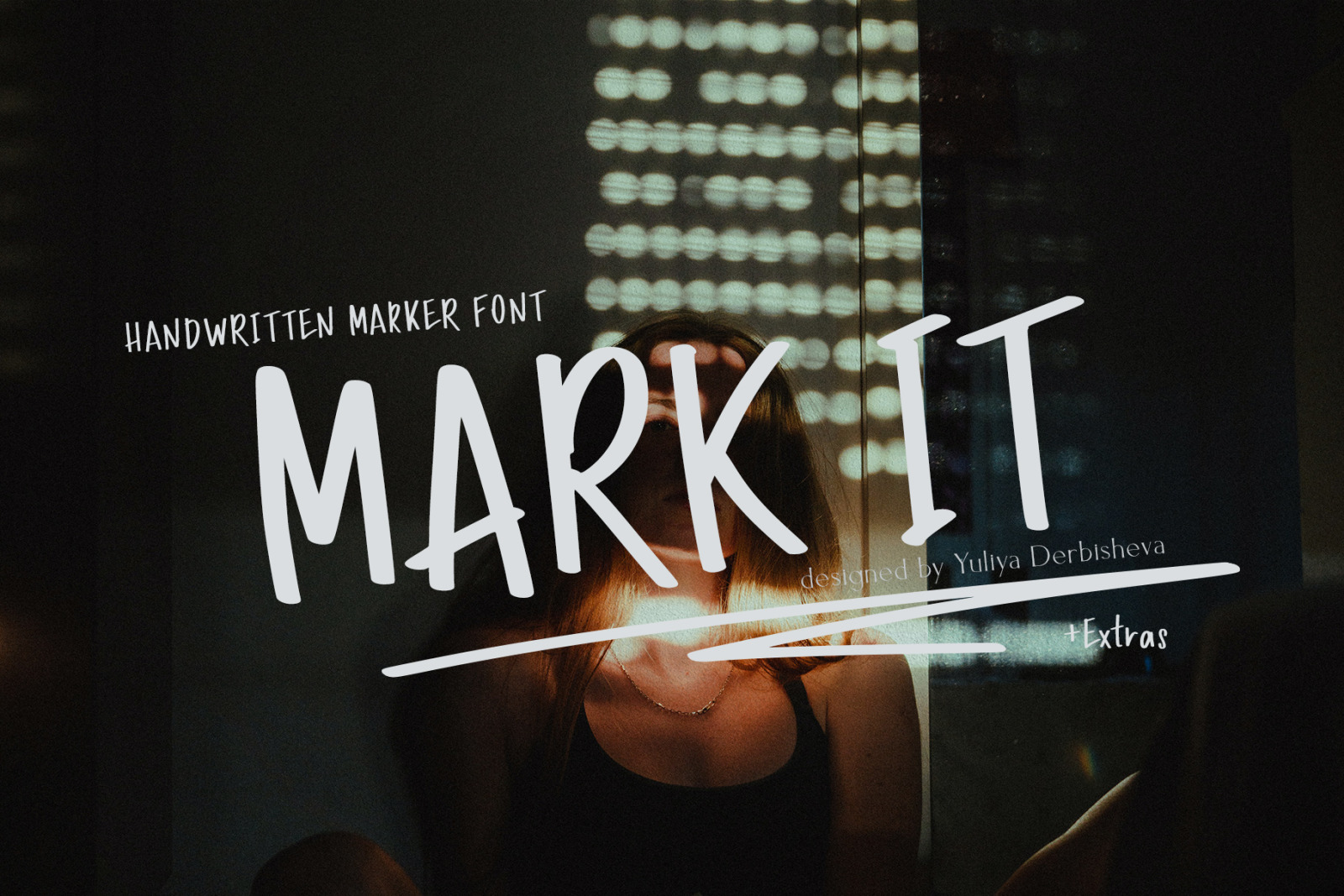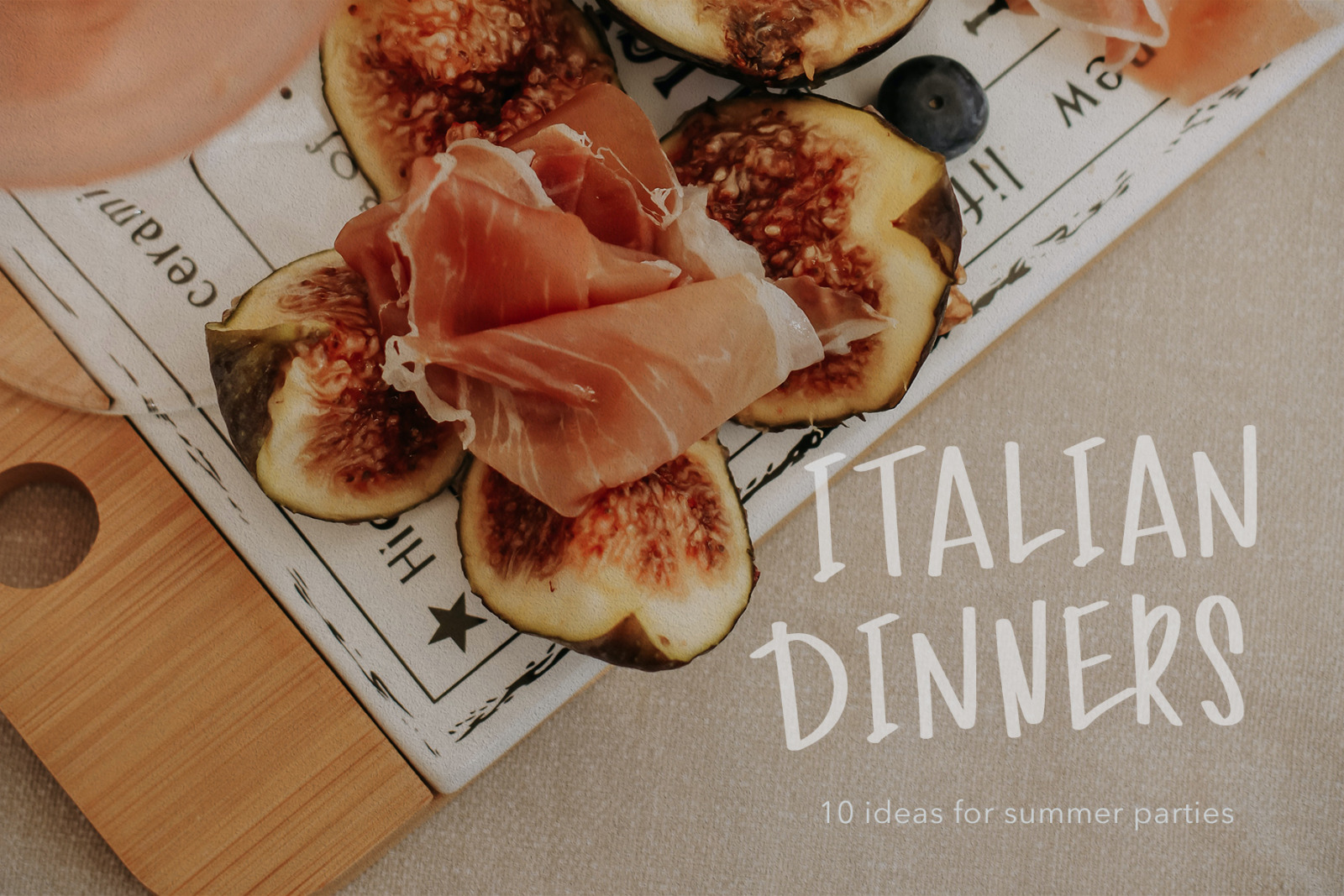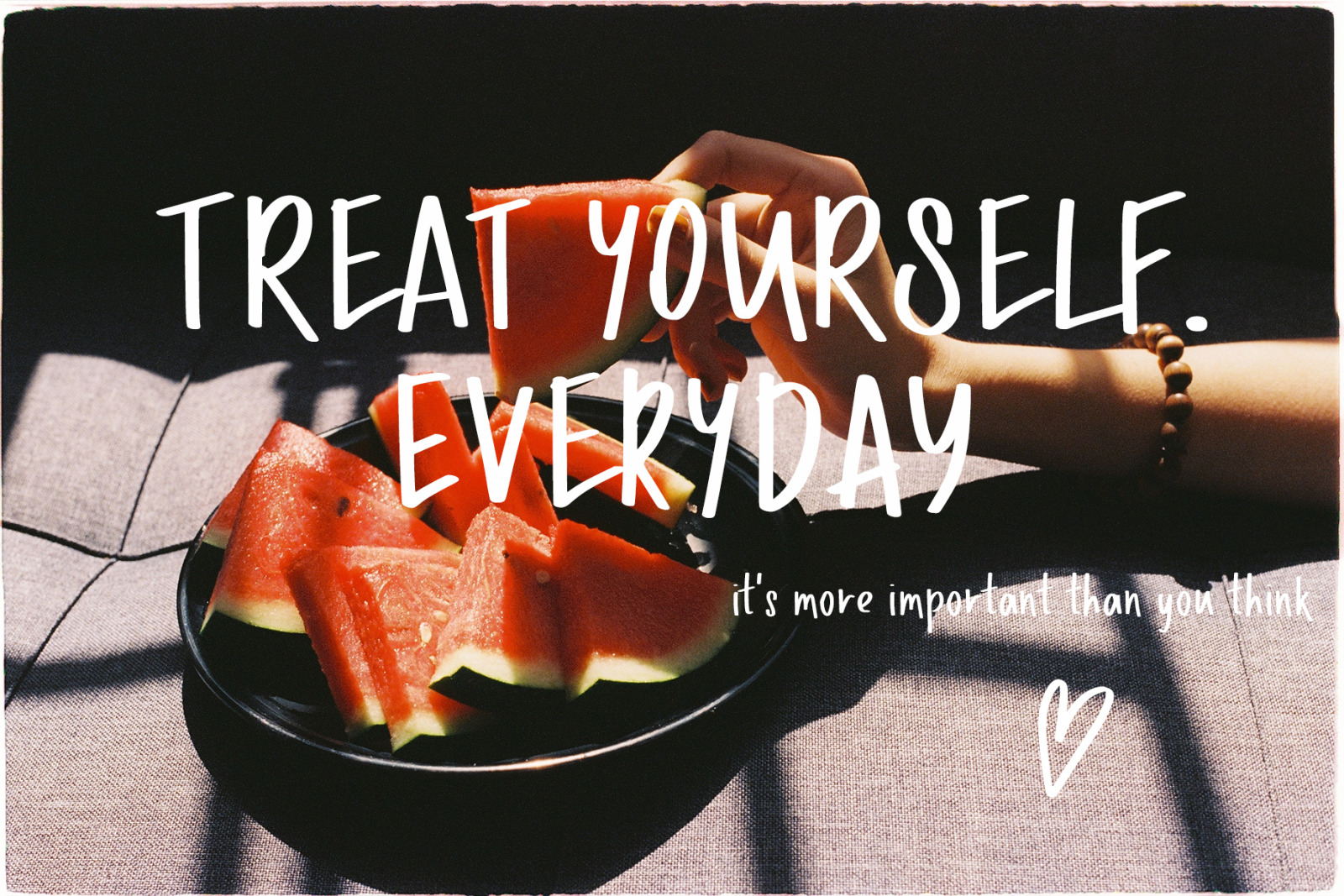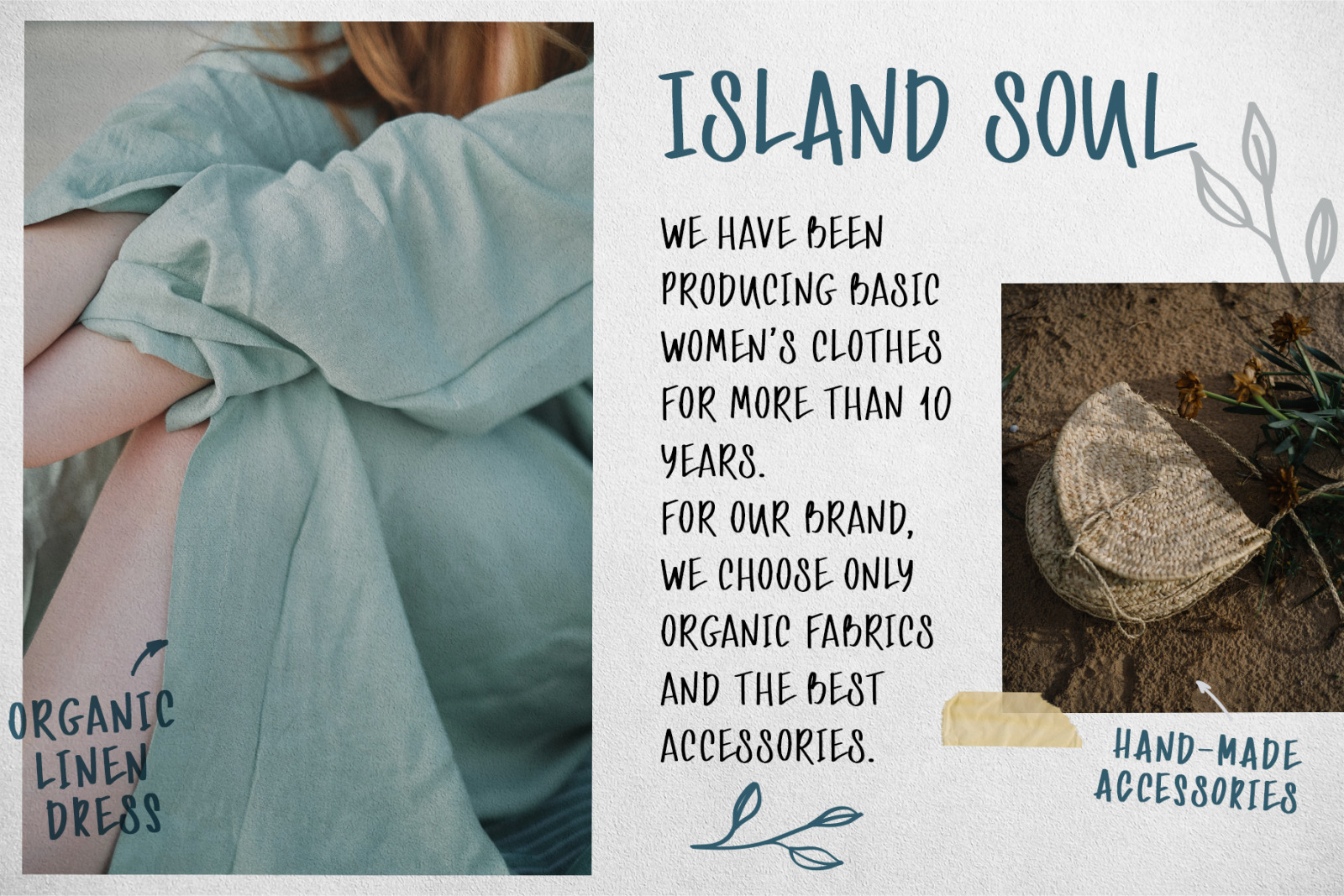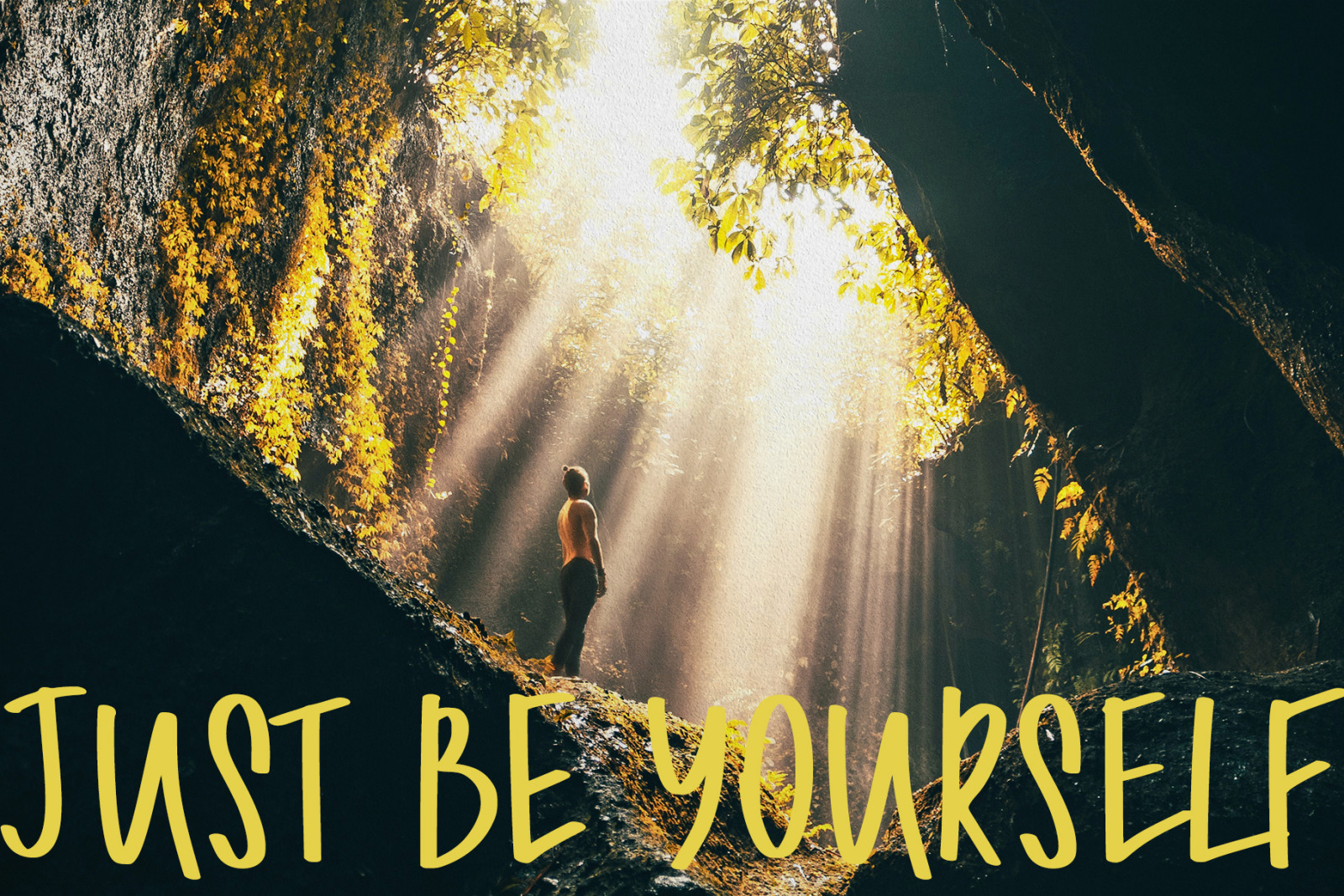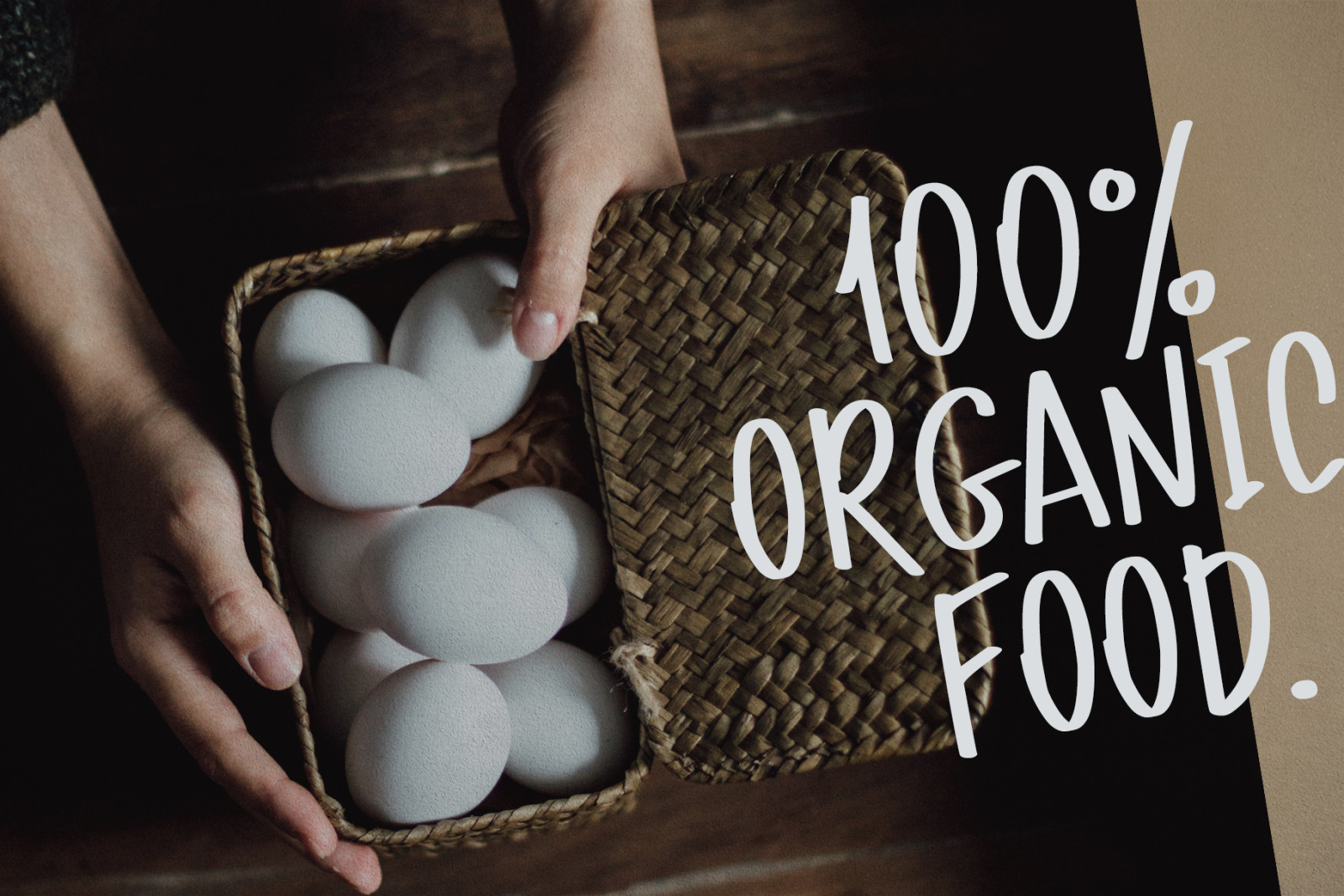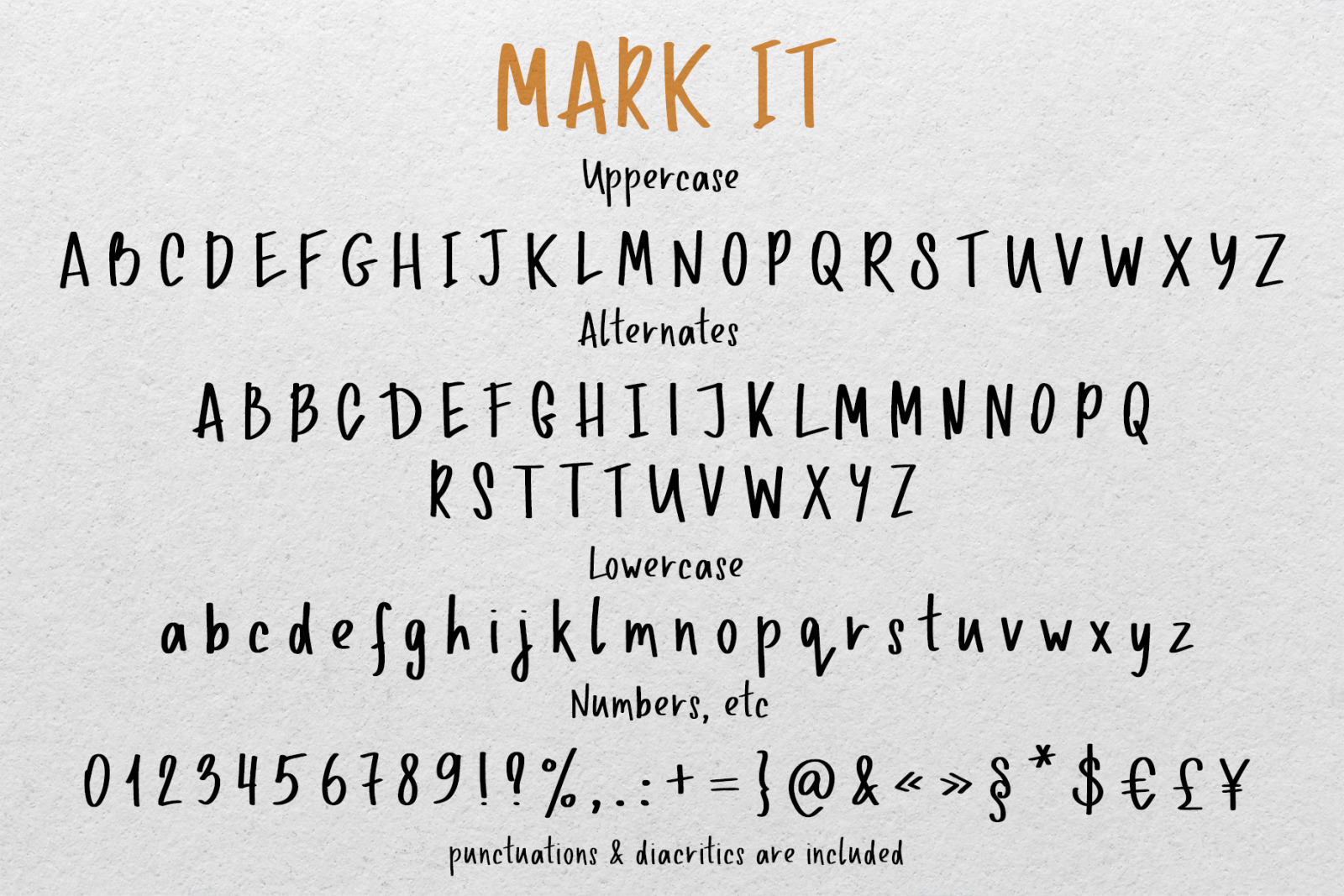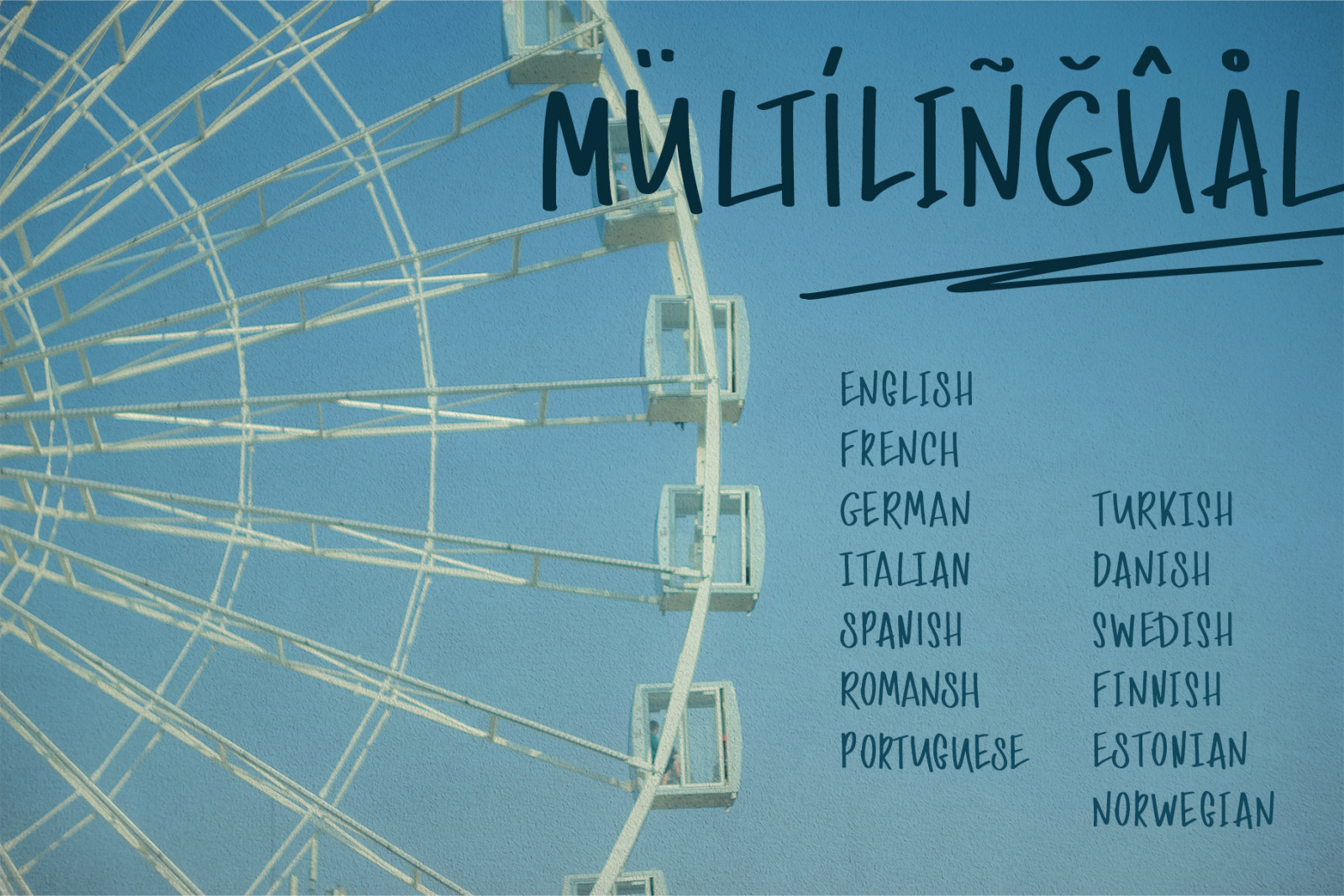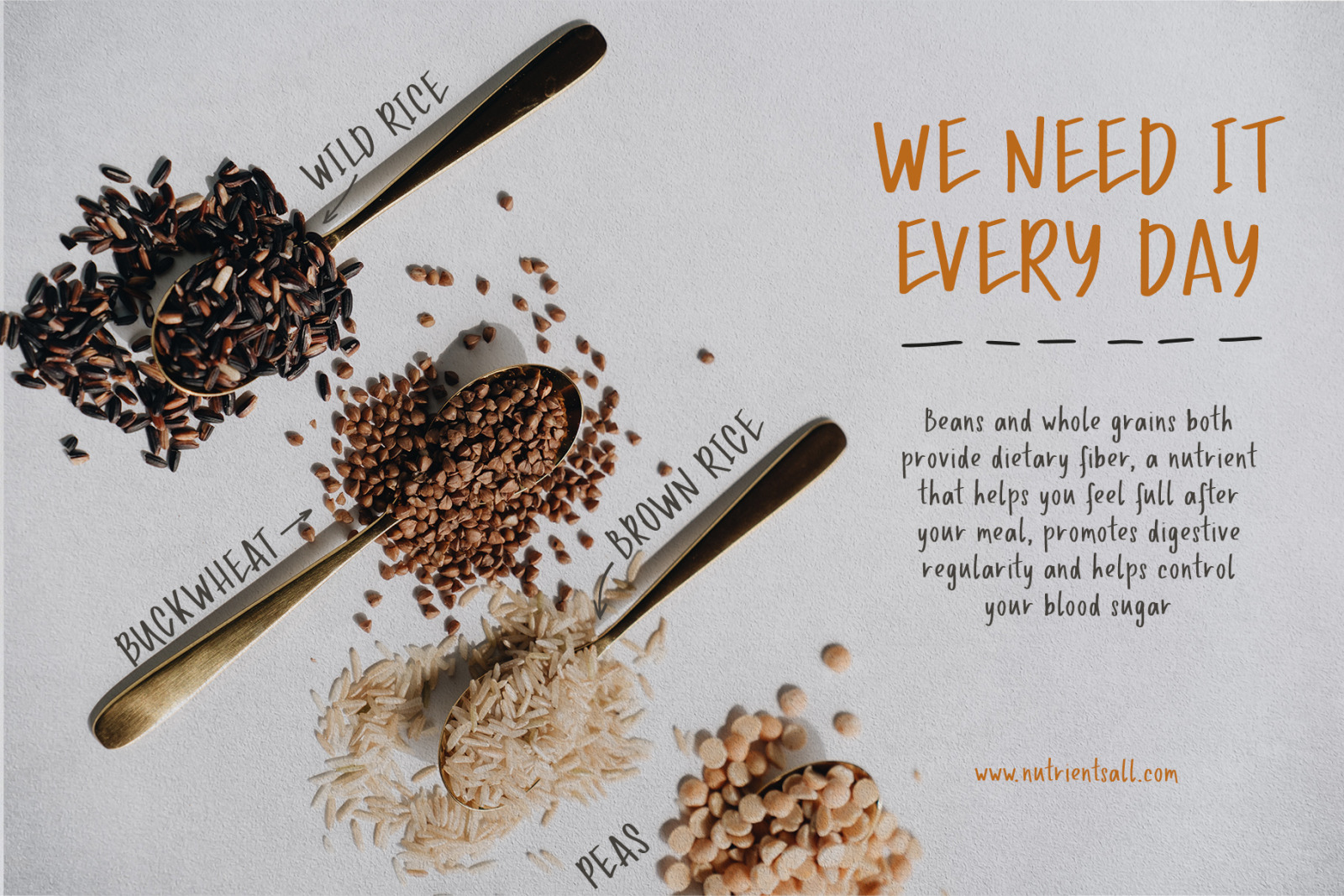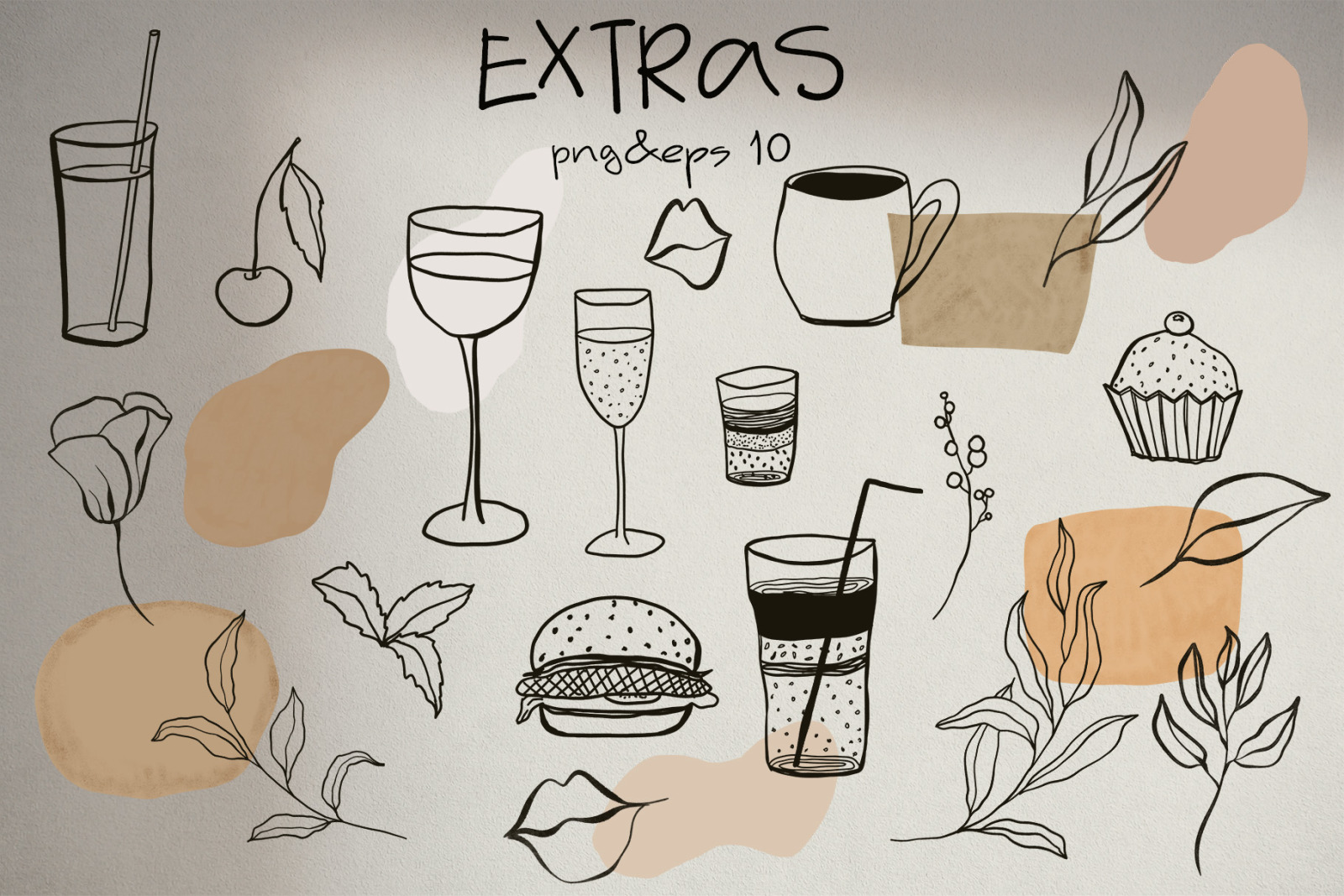
MARK IT handwritten marker typeface font + food doodle illustrations
MARK IT is a handwritten font made with marker. MARK IT includes stylistic alternates and arrows&doodles. The font is suitable for the design on the different themes includes logo design, packaging. 14 illustrations will help you in branding and creating your projects.
MARK IT has extensive language support, it includes English, French, German, Italian, Spanish, Portuguese, Danish, Norwegian, Swedish, Finnish, Estonian, Romansh,Turkish. Need to know if your language is supported? Type any words in the text box below and see if all characters you need are there.